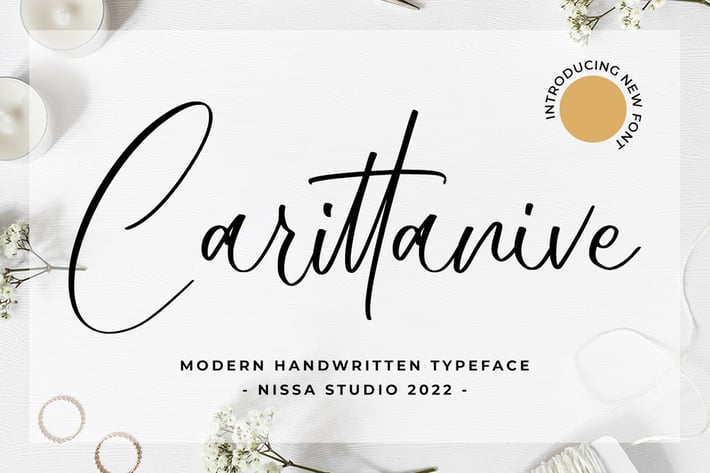
Carittanive - Signature Font
Carittanive is a stunning and incredibly modern handwritten font. This versatile script font has a wide range of applications ranging from greeting cards to headlines and is guaranteed to add a romantic feel to your next craft.
Modern Handwritten Font
Beautiful Swash (Ending tail)
Beautiful Titling (Beginning tail)
Special Ligatures